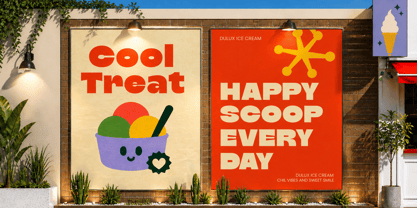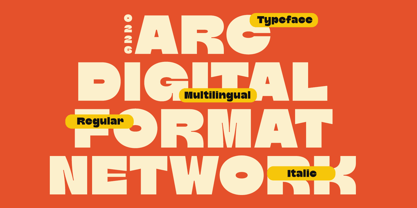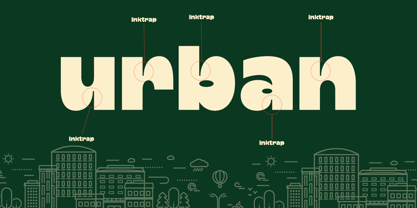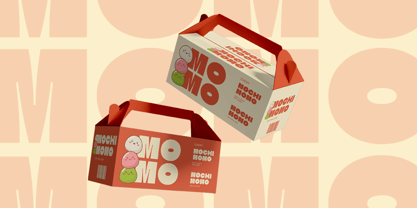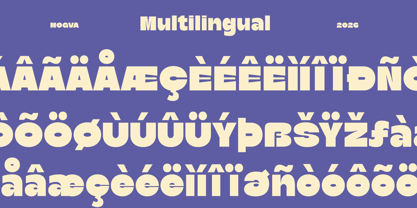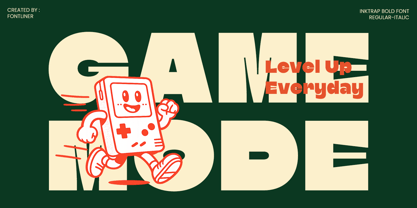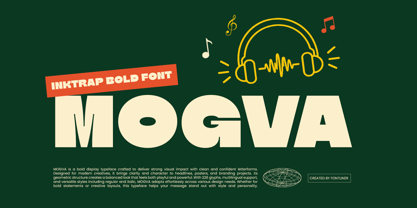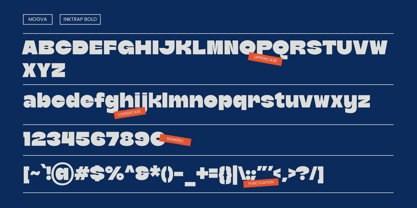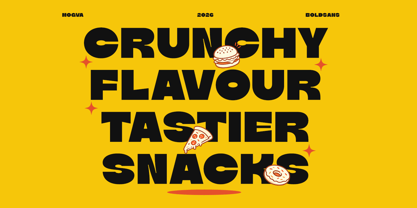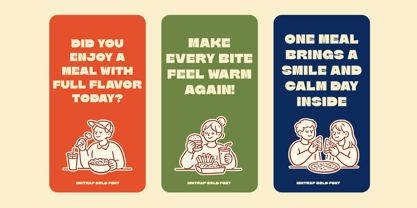
Mogva
Introducing Mogva, a bold display font designed to bring strong energy and playful character into modern creative projects. With chunky letterforms, rounded geometry, and a confident retro-inspired style, this typeface creates eye-catching visuals perfect for impactful headlines and expressive branding.
Mogva is ideal for branding, posters, music covers, gaming content, children’s branding, streetwear, packaging, social media graphics, YouTube thumbnails, and modern advertising projects. Its bold structure and fun personality make every design feel dynamic, energetic, and highly memorable while maintaining clean readability across different layouts.
Crafted for designers who want a modern bold display font with playful retro vibes, Mogva includes multilingual support, numerals, punctuation, to expand your creative possibilities with powerful visual impact.
• Uppercase & Lowercase
• Regular & Italic Style
• Number & Punctuation
• Multilingual Support
• Perfect for Food Branding